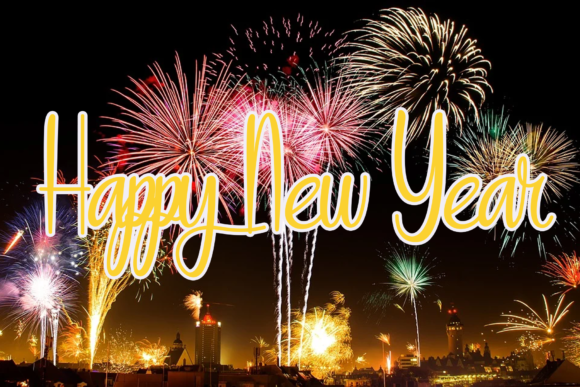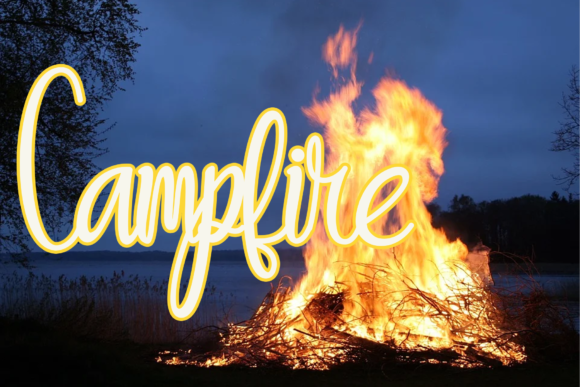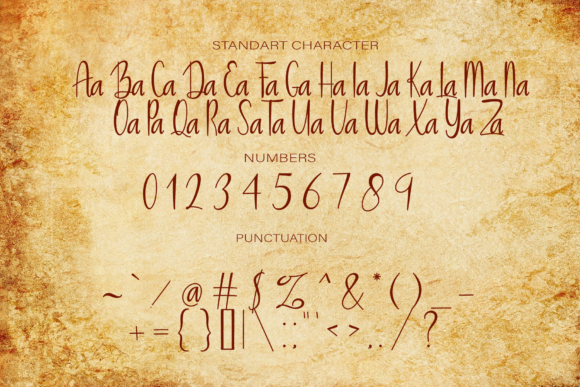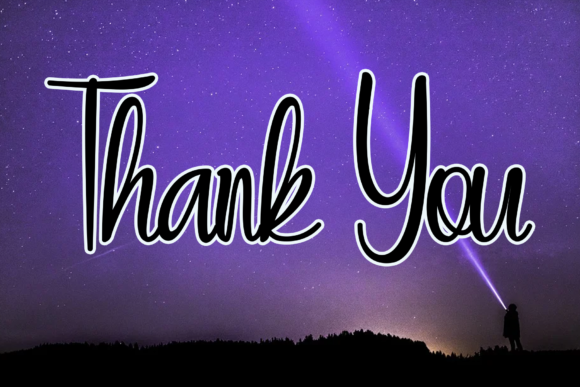
Star Moon Font
About Star Moon Font
Star Moon is a cursive and delicate script font that exudes elegance and class. This font was particularly crafted for those who need a beautiful and refreshing look to their designs.